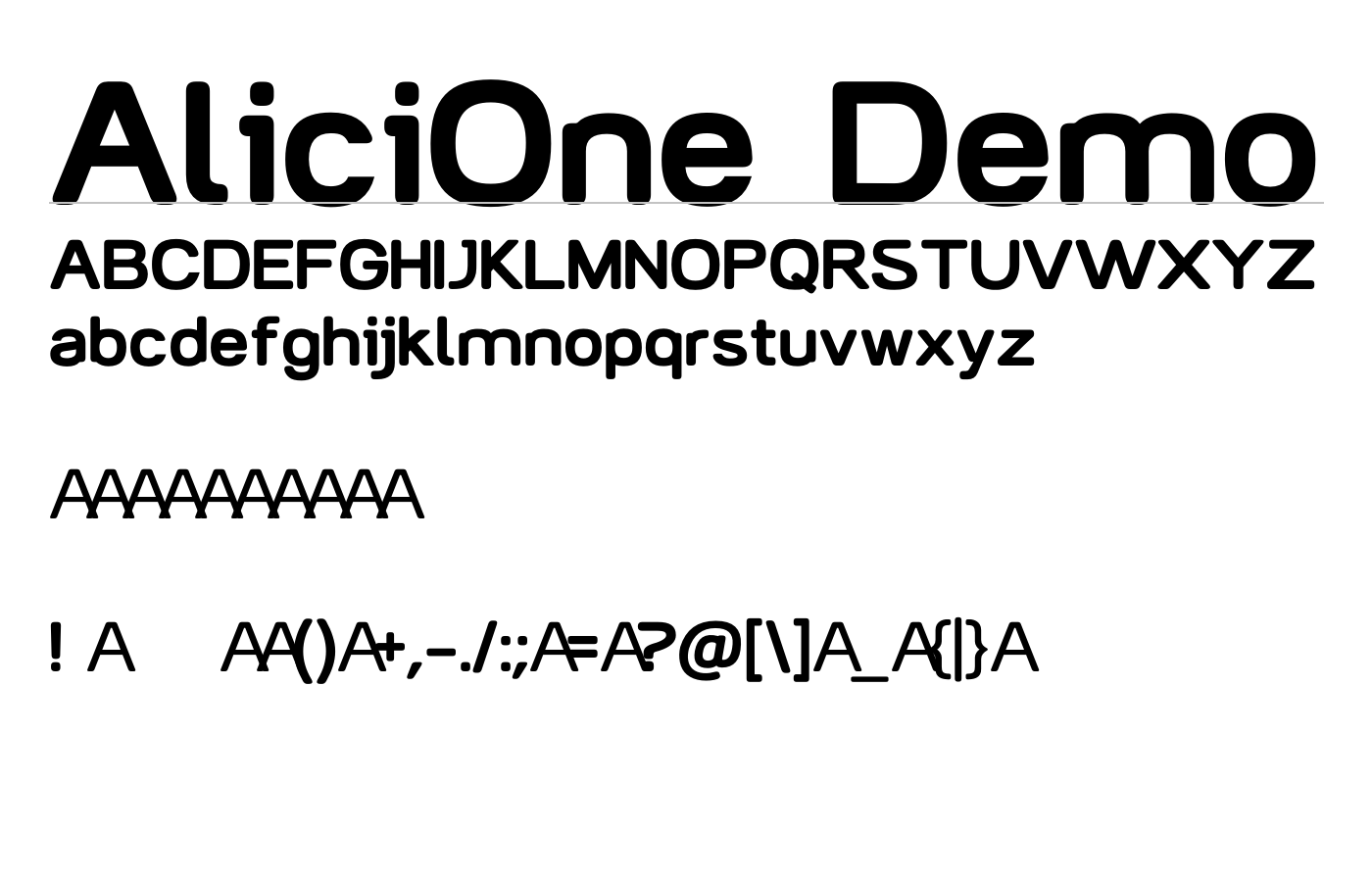
AliciOne Demo is a modern sans serif font with a clean, slightly rounded design that brings a friendly yet professional tone. Its balanced weight and medium x-height make it highly legible, ideal for branding, editorial projects, and user interfaces where clarity and approachability are key. This versatile font works well for headlines and body text, lending a contemporary and accessible feel to any design.
AliciOne Demo Font
About AliciOne Demo Font